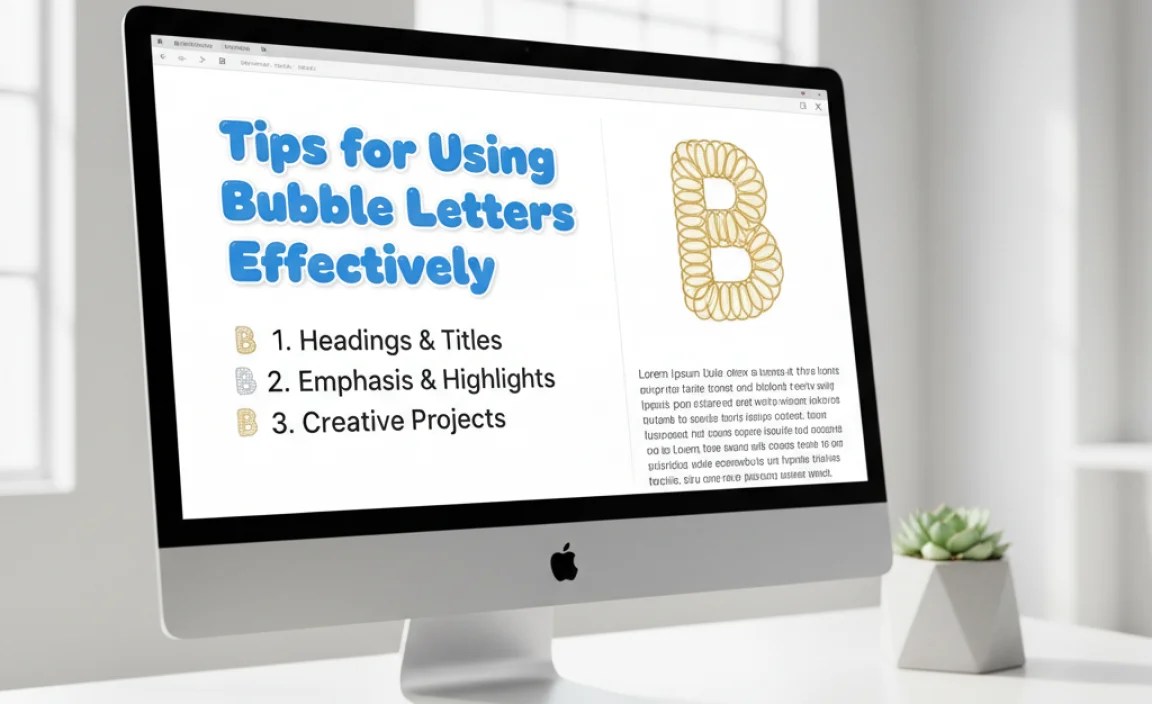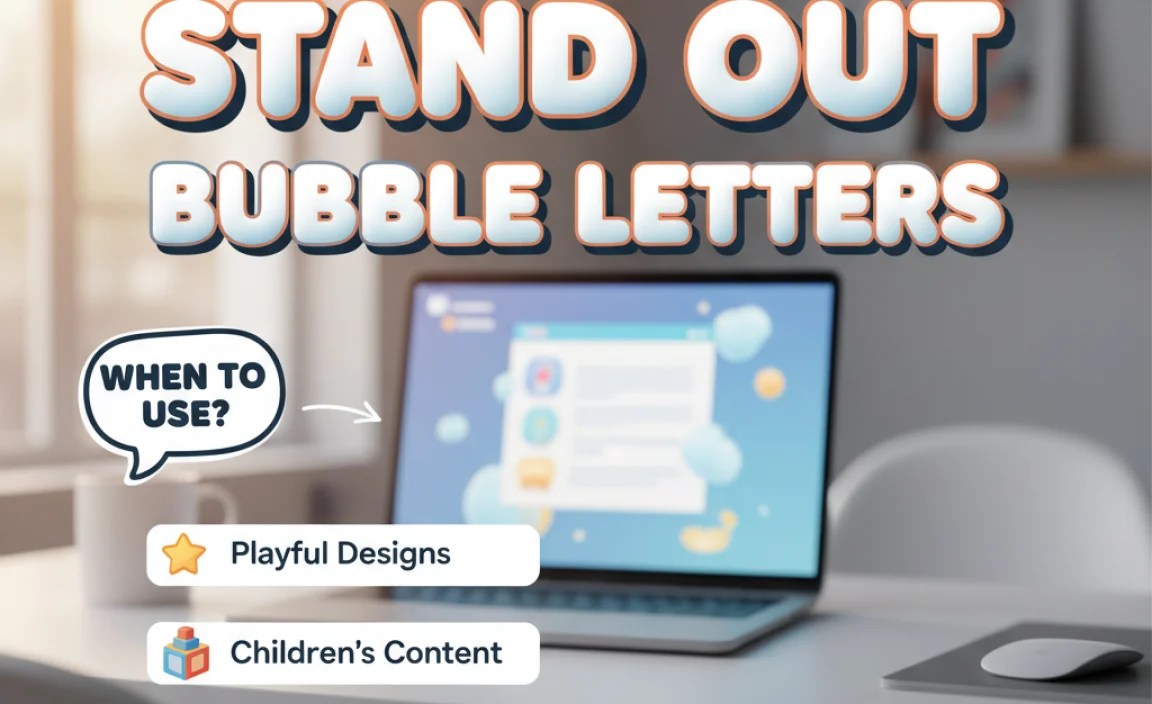
Absolutely! Stand out with bubble letters font in Word by leveraging WordArt’s creative options. This guide walks you through creating fun, eye-catching text for projects, marketing, or just for fun, making your words pop with playful, rounded designs.
Ever feel like your text just… blends in? In the digital world, making your words memorable is key! Sometimes, a standard font just doesn’t have the playful punch needed for that special project, headline, or creative piece. It can be frustrating when you want your text to grab attention and express a bit of fun.
But don’t worry! Creating cool bubble letter styles in Microsoft Word is surprisingly easy and opens up a world of creative possibilities. Get ready to transform your ordinary text into something extraordinary, with simple steps that anyone can follow. We’ll show you exactly how to add that bouncy, rounded charm to your words.
Why Choose Bubble Letters Font?
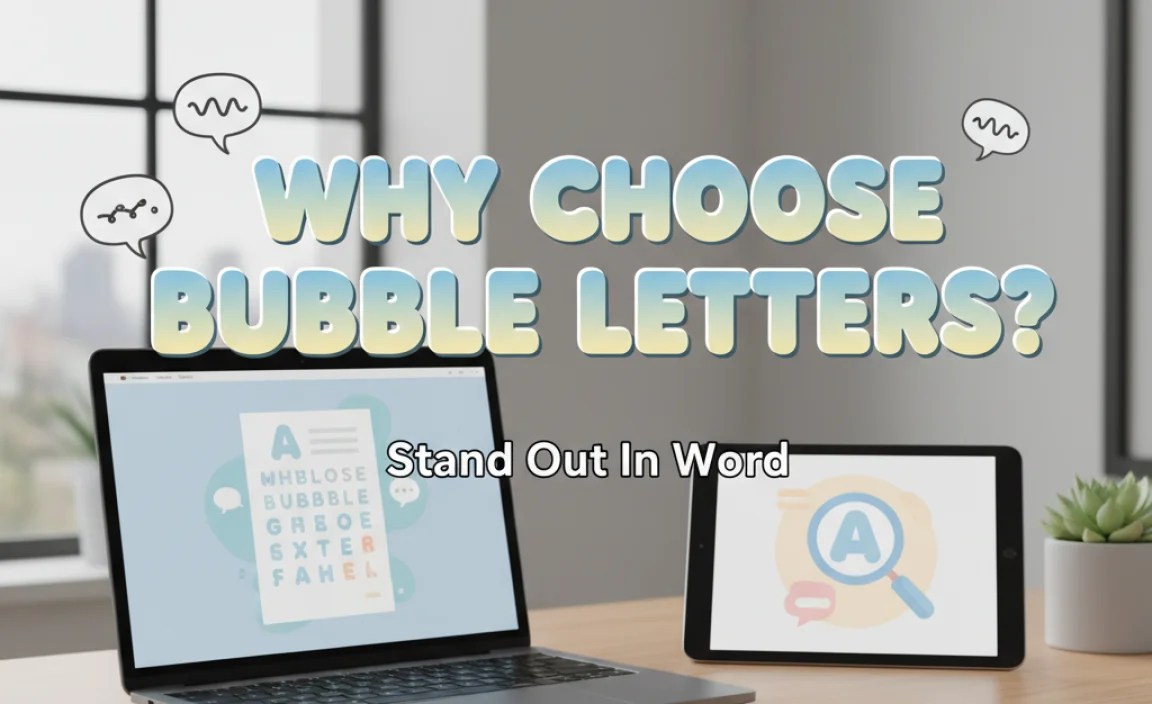
Bubble letters, with their rounded, inflated appearance, instantly bring a sense of fun, playfulness, and friendliness to any design. They’re not just for kids’ party invitations anymore! Businesses can use them for catchy slogans, bloggers for engaging headlines, and even students for creative project titles. This unique style breaks away from traditional typography, making your message more visually engaging and memorable. Think of them as little balloons of joy for your words!
Choosing the right font can dramatically alter the perception of your message. Bubble letters offer a unique visual appeal that:
- Grabs Attention: Their distinct shape naturally draws the eye, making them perfect for headlines, banners, and calls to action.
- Conveys Playfulness: They evoke feelings of fun, joy, and lightheartedness, ideal for creative projects, event invitations, or informal communication.
- Enhances Memorability: Unique styles are easier to recall. A well-placed bubble letter design can make your content stick in someone’s mind.
- Offers Creative Expression: They provide a way to inject personality and flair into your documents, going beyond standard text.
Creating Bubble Letters in Word: A Step-by-Step Guide
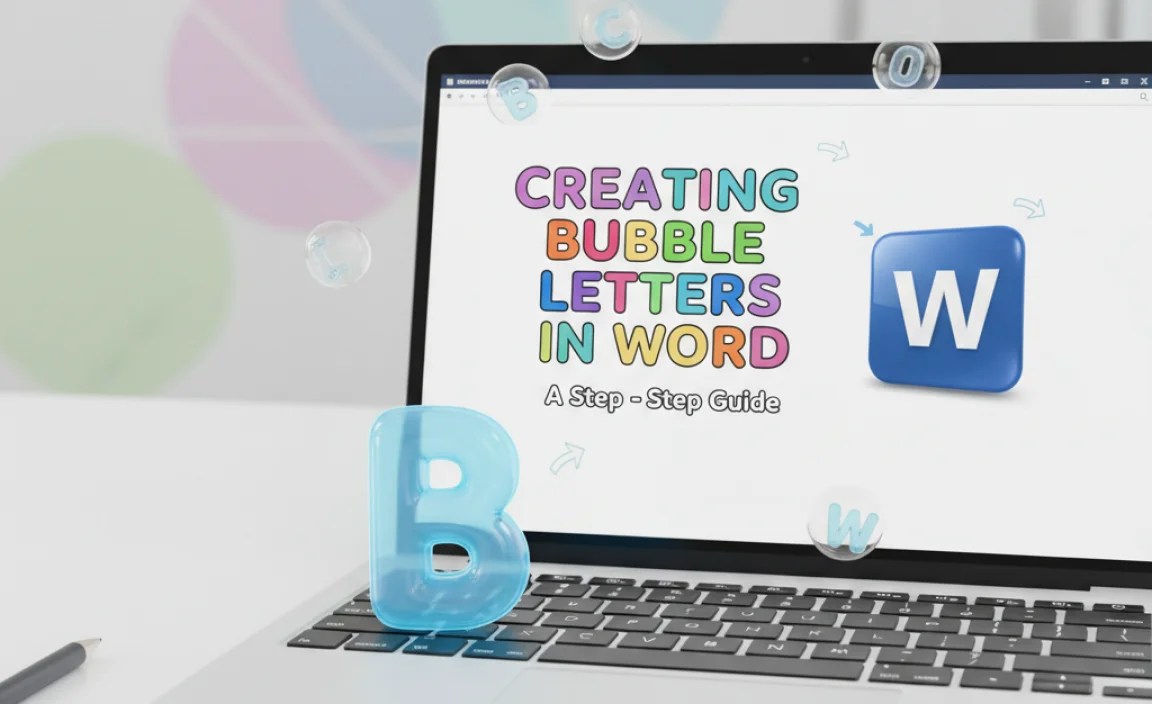
Microsoft Word offers a powerful tool called “WordArt” that lets you create stylized text, perfect for generating bubble letter effects. It’s simpler than you might think!
Step 1: Accessing WordArt
First things first, open up your Microsoft Word document. You’ll find the WordArt feature nestled within the ‘Insert’ tab. Look for the ‘Text’ group, and you’ll see an icon that looks like a slanted ‘A’ with some shading – that’s WordArt!
- Open your Microsoft Word document.
- Navigate to the Insert tab on the ribbon.
- In the ‘Text’ group, click on WordArt.
Step 2: Choosing a WordArt Style
Once you click ‘WordArt’, a gallery of pre-designed text styles will pop up. These are your starting points. For a classic bubble letter look, you’ll often want to choose a style that’s relatively bold and rounded. Don’t worry too much about the exact color or effect yet; we can customize that.
Consider styles that have a simple, filled appearance initially. Some styles might have outlines or gradients already, which can give you a head start. Look for options that feel a bit chunky and rounded.
Step 3: Entering Your Text
After selecting a style, a text box will appear on your document with placeholder text like “Your text here”. Double-click inside this box and type the word or phrase you want to transform into bubble letters. Your text will now appear in the WordArt style you selected.
Step 4: Transforming Text into Bubble Letters with Word Styles
Now for the magic! With your WordArt text box selected, a new contextual tab called ‘Drawing Tools’ or ‘Shape Format’ will appear. This is where you’ll find all the customization options.
Applying a Bubble Letter Effect:
- Select your WordArt text.
- Go to the Shape Format tab.
- In the ‘WordArt Styles’ group, click Text Effects.
- Hover over Transform.
You’ll see a variety of warping options represented by different shapes. Look for effects that make your text expand outwards, giving it that characteristic rounded, inflated look. Some common choices that work well for bubble letters include:
- Arch Up (or Down): This can create a rounded effect for individual letters or words.
- Inflate: Often found under the ‘Warp’ section, this effect literally makes the text appear to puff up.
- Circle: This can create a circular arrangement but also a rounded, bubbly character if applied subtly.
Experiment with different ‘Warp’ styles. Sometimes, a subtle application of an ‘Arch’ or ‘Inflate’ effect can create a fantastic bubble letter look. You might need to adjust the size of the text box or the text within it to get the perfect curvature.
Step 5: Customizing Your Bubble Letters
This is where you can really make your bubble letters unique!
Q3: How do I make the bubble letters look rounder?
A3: Experiment with the ‘Transform’ options under ‘Text Effects’ in the ‘Shape Format’ tab. Effects like ‘Inflate’ or ‘Arch’ can give a rounded appearance.